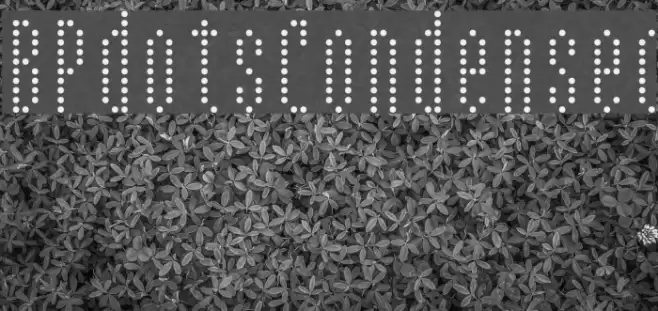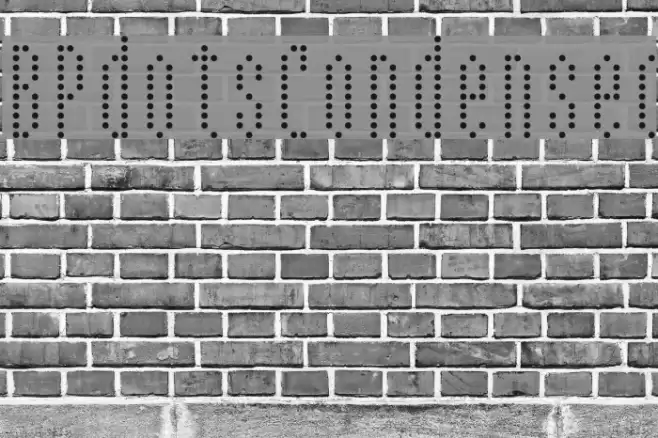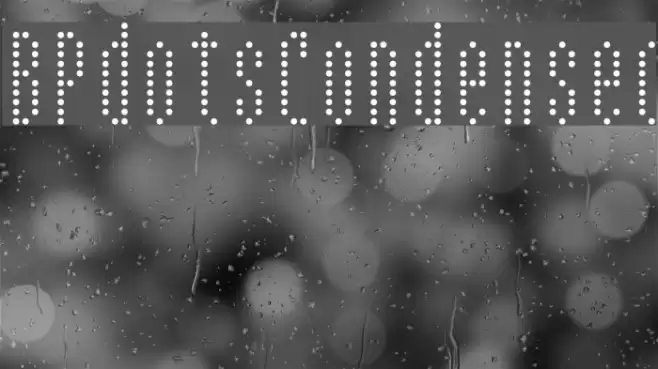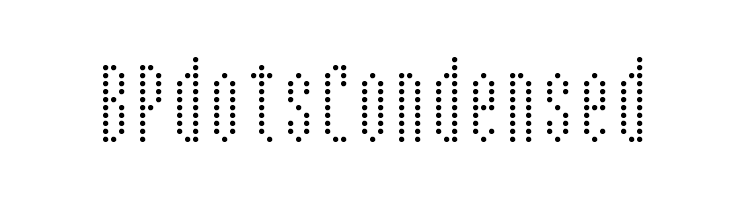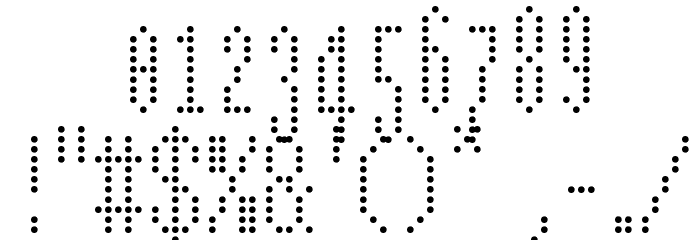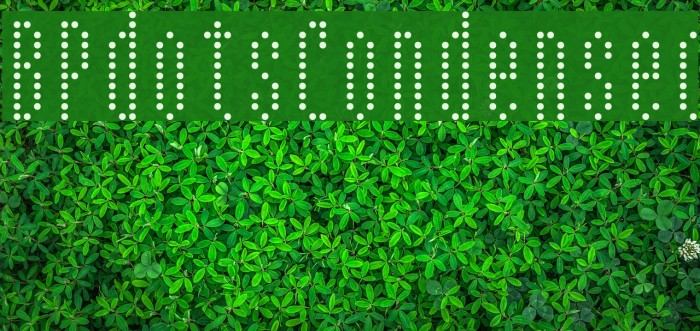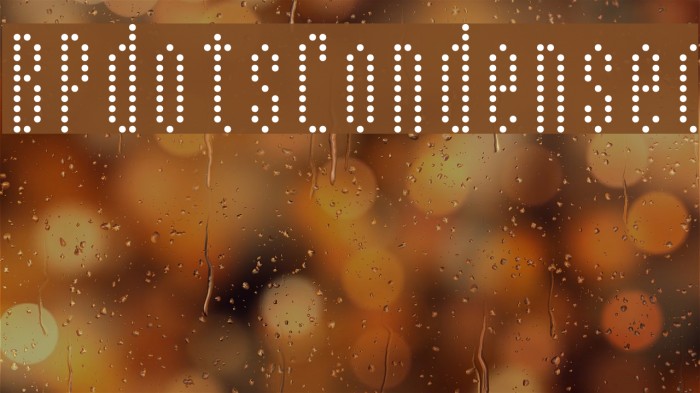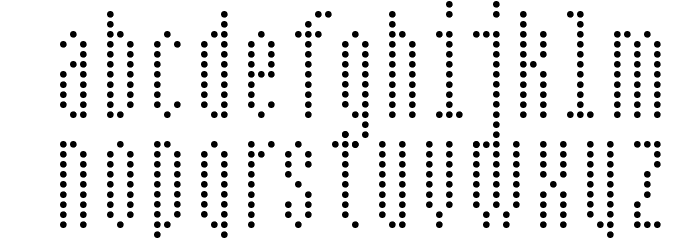
BPdotsCondensed Font
BPdotsCondensed Description
This font is a unique and creative design composed entirely of dots, forming each character with precision and clarity. The dotted style gives it a digital or retro feel, reminiscent of early computer displays or LED signage. Each letter and number is constructed with a consistent pattern of dots, creating a uniform appearance across the entire set. The spacing between the dots is even, ensuring readability while maintaining the distinct dotted aesthetic. This font is particularly eye-catching and can be used to draw attention in various design contexts.
A dotted, digital-style font with a retro aesthetic from Uncategorized fonts.
- Proposed Projects: Ideal for digital displays, retro-themed designs, posters, and creative branding projects.